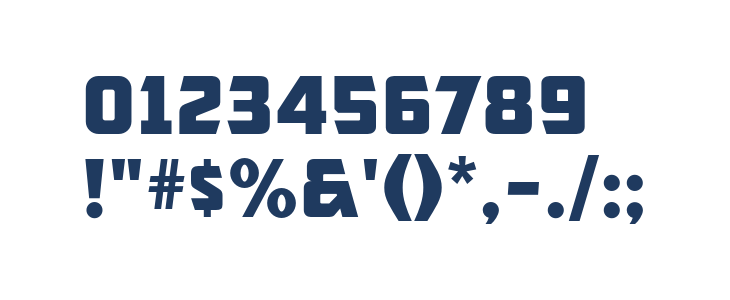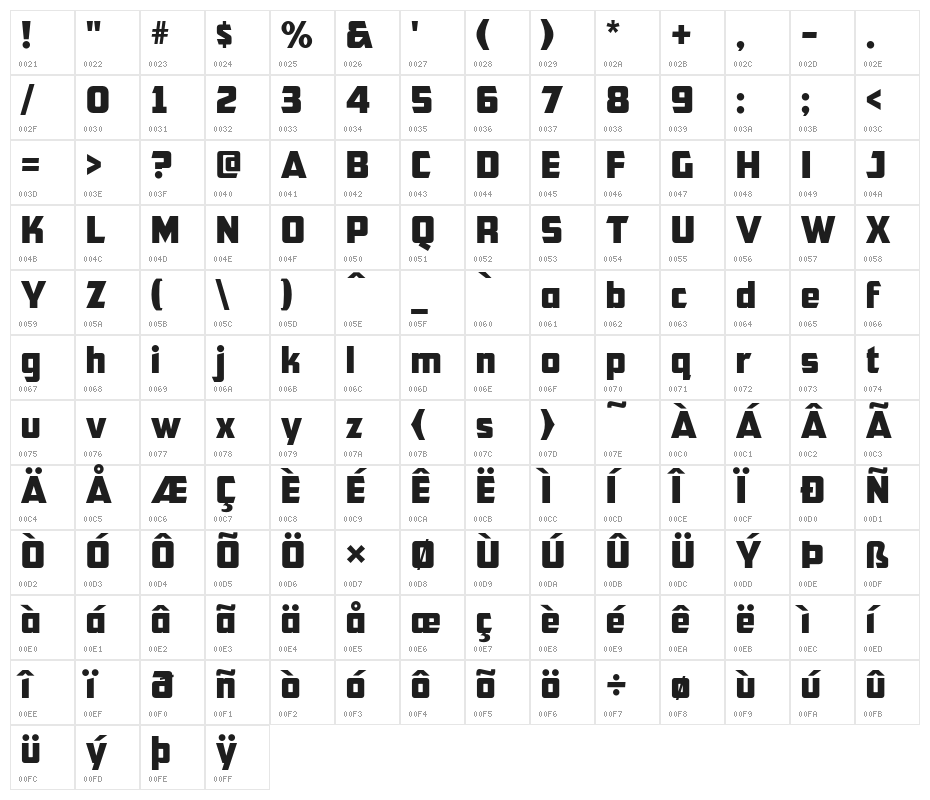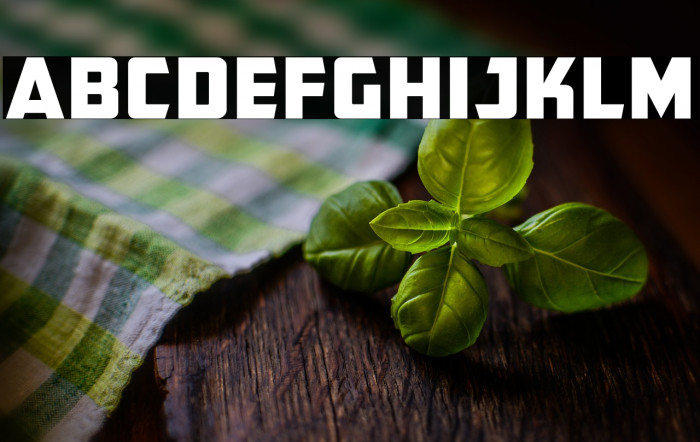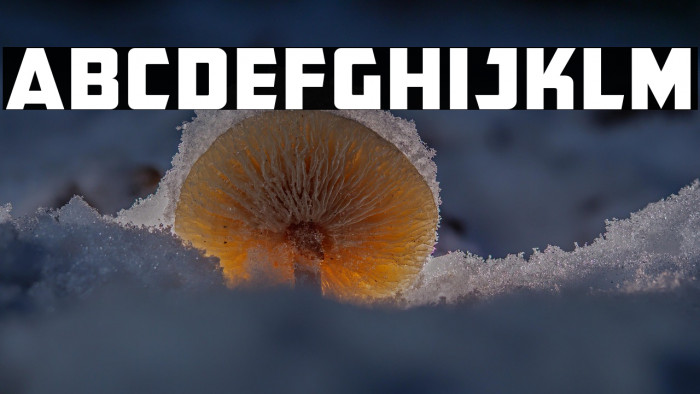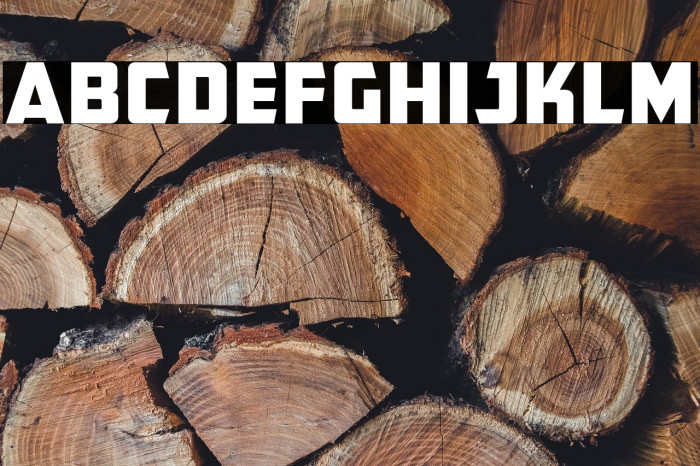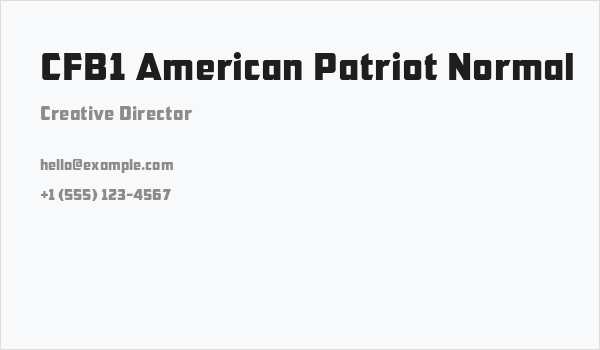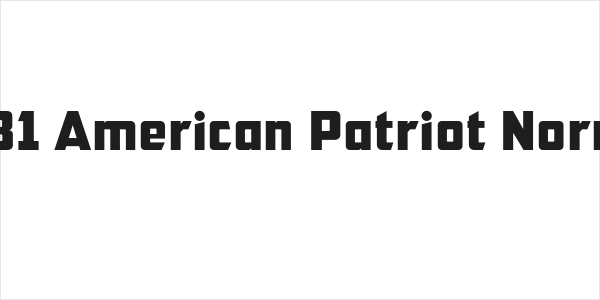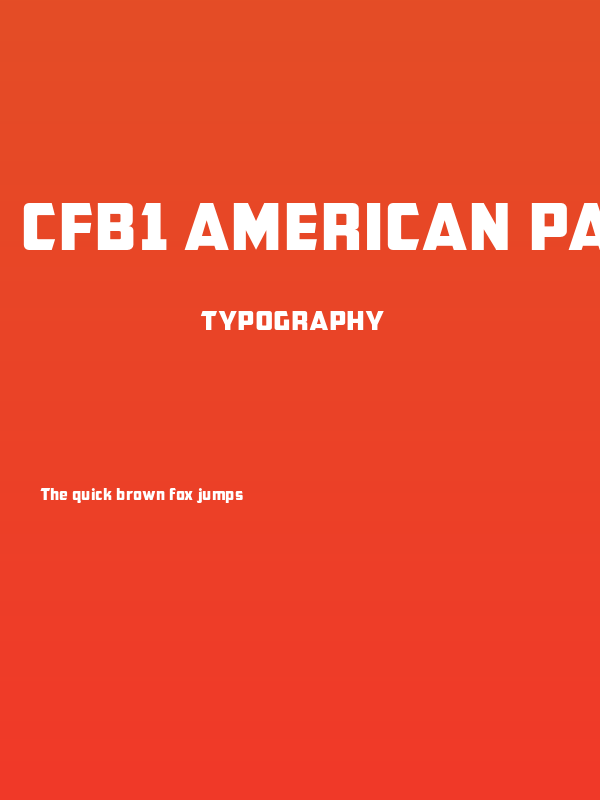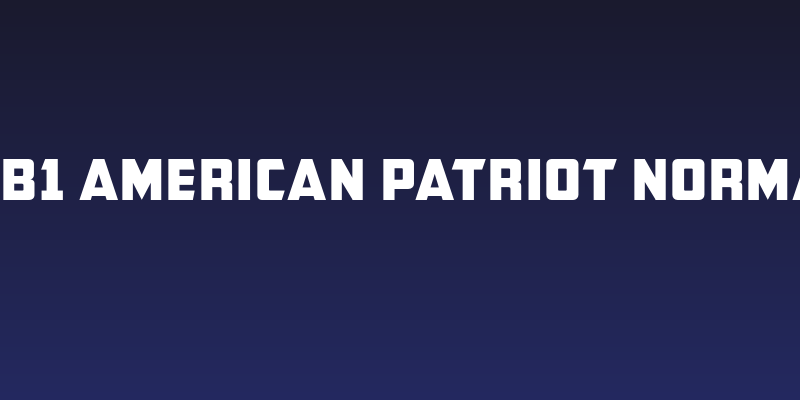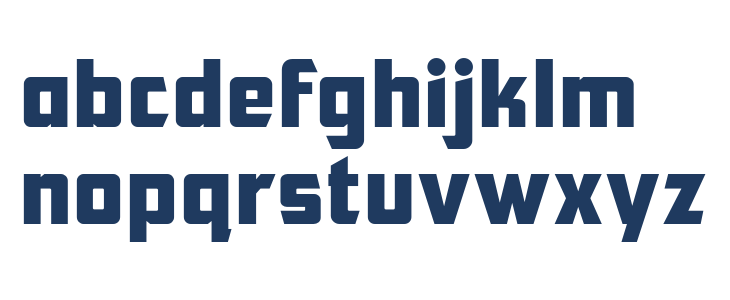
CFB1 American Patriot Normal Font
CFB1 American Patriot Normal Description
This font features a bold and robust design, characterized by thick, blocky letters with a strong presence. The uppercase and lowercase letters maintain a consistent weight, contributing to a uniform appearance. The numerals and special characters are designed to match the boldness of the alphabet, ensuring a cohesive look across all characters. The font's geometric shapes and clean lines give it a modern and assertive feel, making it suitable for impactful and attention-grabbing designs.
| Proposed Projects | Ideal for posters, headlines, branding, and any project requiring a strong visual impact. |